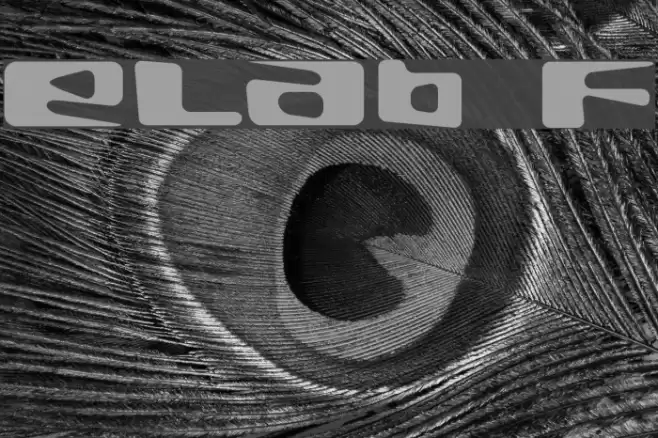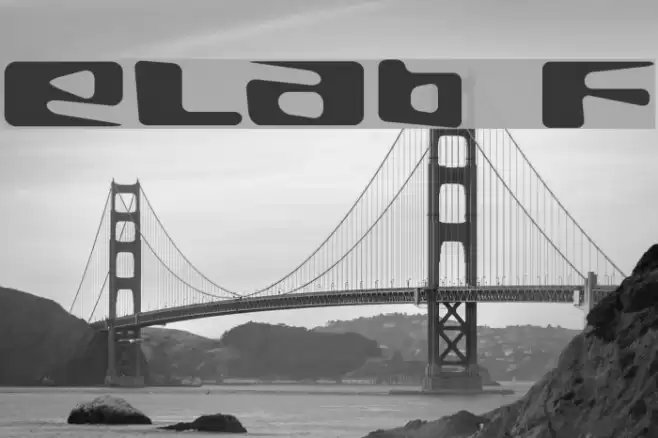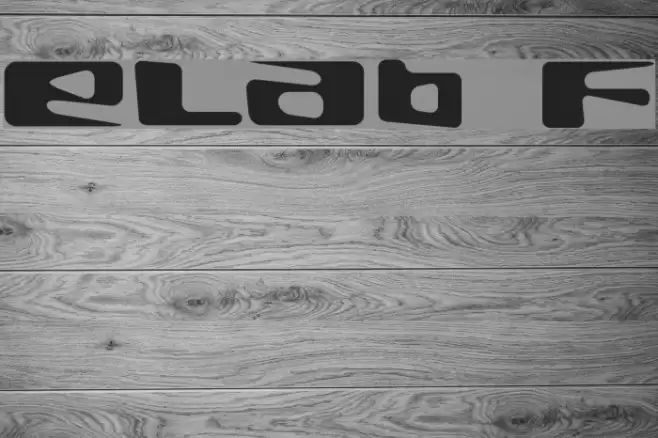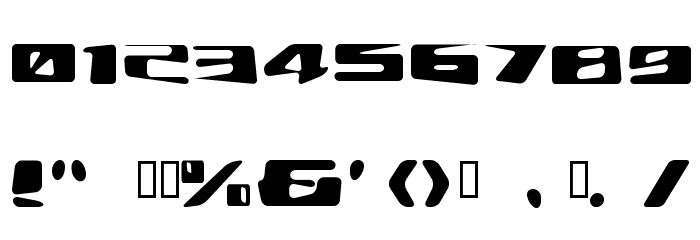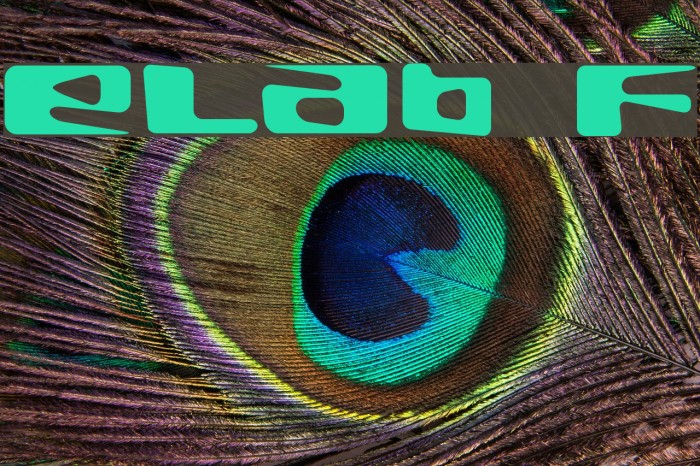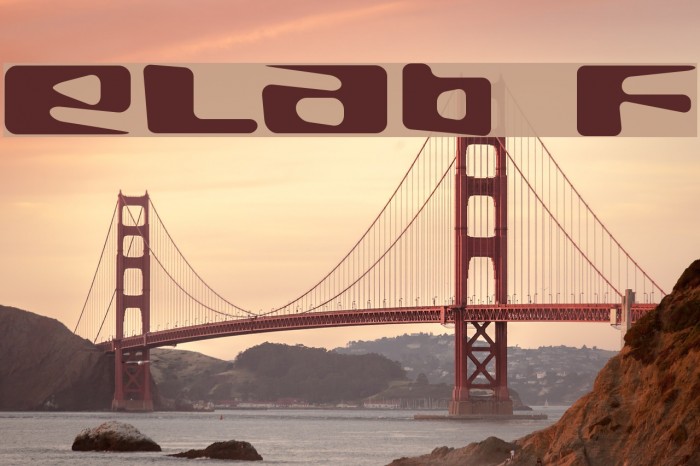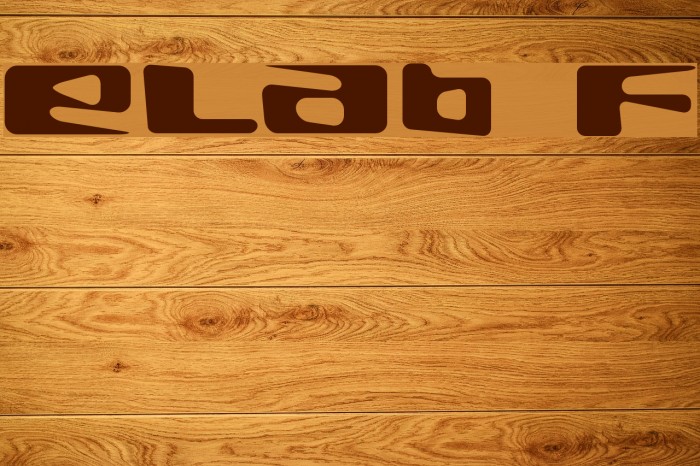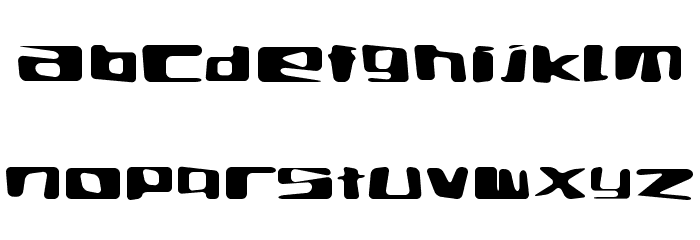
eLab Font
eLab Description
This font features a bold and dynamic design with a futuristic and edgy appearance. The characters are uniquely shaped with sharp angles and varying thicknesses, creating a sense of movement and energy. The uppercase and lowercase letters maintain a consistent style, with some characters having distinctive cuts and slashes that add to the overall modern aesthetic. The numerals and special characters follow the same design principles, ensuring uniformity across the font. This typeface is visually striking and commands attention, making it suitable for projects that require a bold statement.
A bold, futuristic font with sharp angles and dynamic shapes from Sci-fi fonts.
- Overall Style: Futuristic